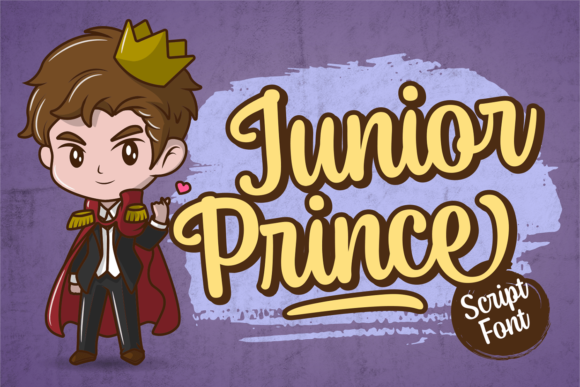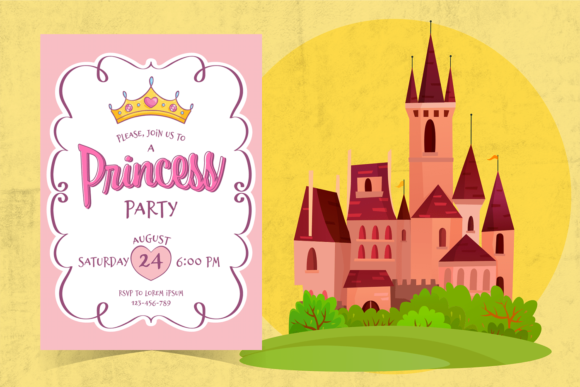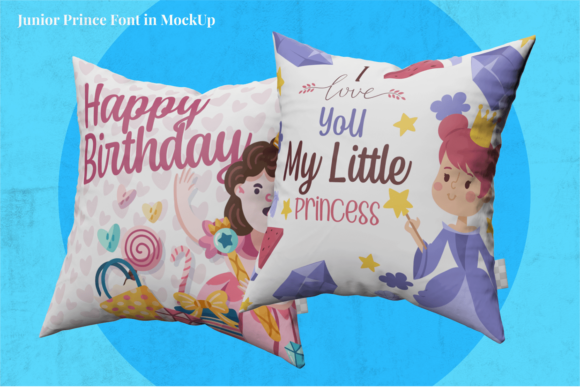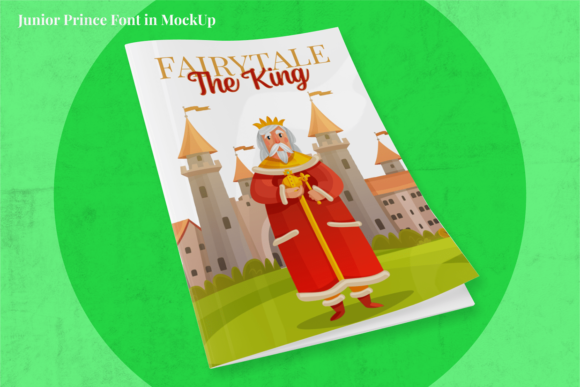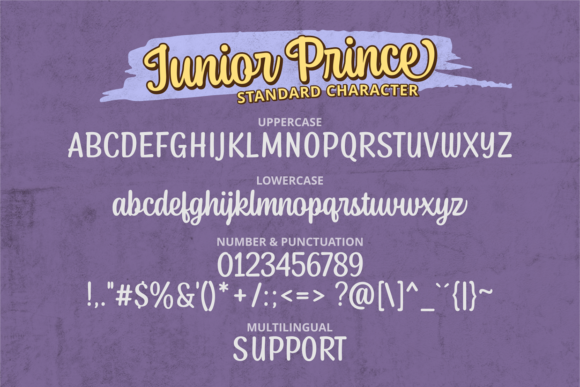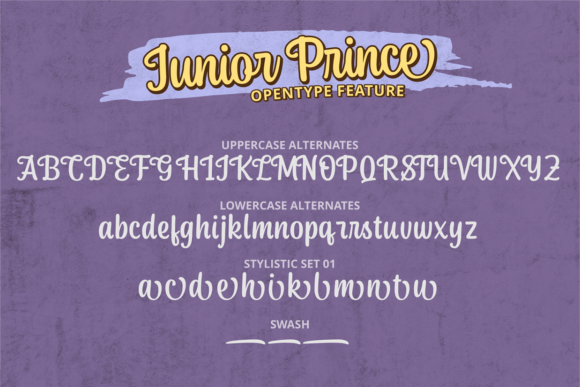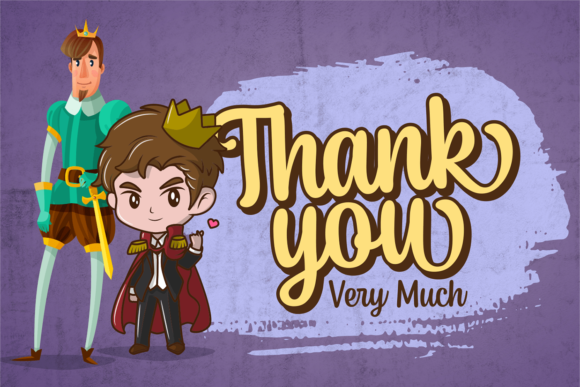
Junior Prince Font
About Junior Prince Font
Junior Prince is an elegant and charming script font created with the help of a brush pen. This font is PUA encoded which means you can access all of the glyphs and swashes with ease! It features a varying baseline, smooth lines, gorgeous glyphs and stunning alternates. Fall in love with its incredibly versatile style and use it to create gorgeous wedding invitations, beautiful stationary art, eye-catching social media posts, and much more!